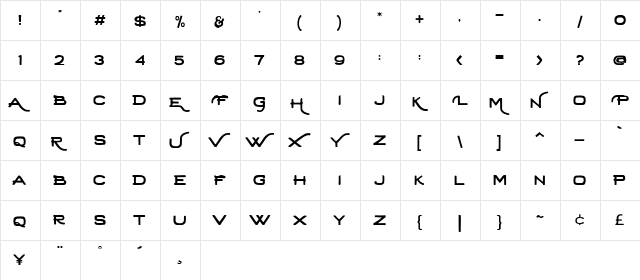
Retrica Regular
| Foundry | Republik Digital |
| Designer | Republik Digital |
Design Context for Retrica Typeface
Retrica offers clean, dependable letterforms without strong stylistic allegiance, making it a practical choice for designers who need flexibility.
Pro Tip: Use Retrica in both headline and body roles to test its range before committing to a single application.